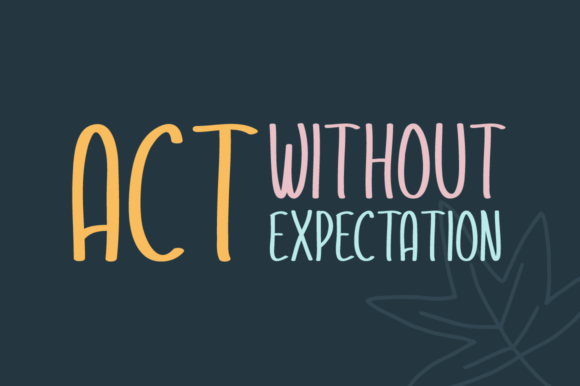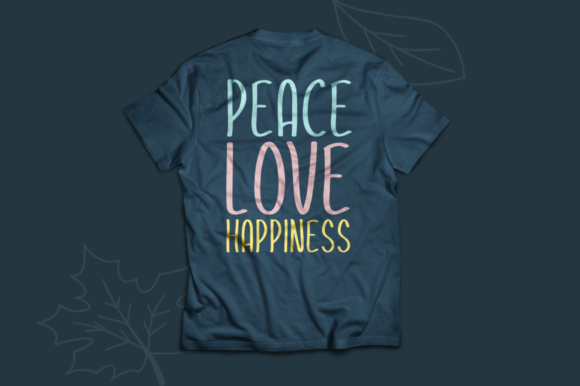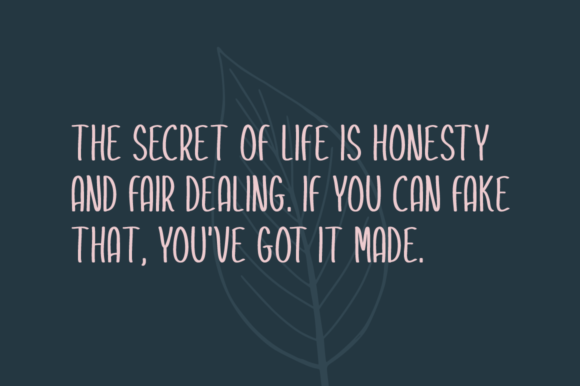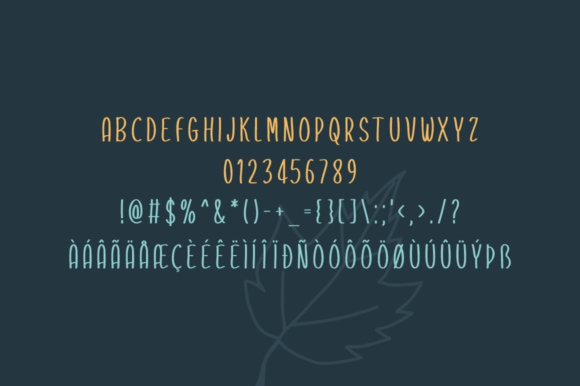
HomeScript FontsBonrin Font Script Fonts Bonrin Font FacebookXPinterestWhatsApp Bonrin Font Poster 2 Bonrin Font Poster 3 Bonrin Font Poster 4 Bonrin Font Poster 5 About Bonrin Font Bonrin is a fun and charming handwritten font with a unique feel. Get inspired by its organic charm! DOWNLOAD ON CREATIVE FABRICAThis font is sold and delivered by Creative Fabrica. Font Canyon may earn a commission if you buy through this link. People also explored Me and You Font Magic Markers Font Tile 2 Pattern Font GRAYN | SLAB SERIF FONT FAMILY Font Silentina Font Melvio Play Font Smile Glowing Font Mashiny Font Priscilla Font 321 0 TagsBonrin Font Previous articleSughar FontNext articleBookish Font LEAVE A REPLY Cancel reply Comment: Please enter your comment! Name:* Please enter your name here Email:* You have entered an incorrect email address! Please enter your email address here Website: Save my name, email, and website in this browser for the next time I comment. Personal Use Free Martani Personal Use Free Read more about this font Broodfath Personal Use Free Read more about this font Multicolore Personal Use Free Read more about this font GoodFay Personal Use Free Read more about this font BLOG How to Cut Any Font on Cricut: Convert a Font to SVG (Free) Turn any font into a clean SVG so it cuts crisp on Cricut - a quick 3-step workflow using a free font-to-SVG tool. Exploring Font Trends Using Fonts in Digital Marketing: Tips to Strengthen Your Brand Identity To increase your work productivity, choose the most readable fonts.